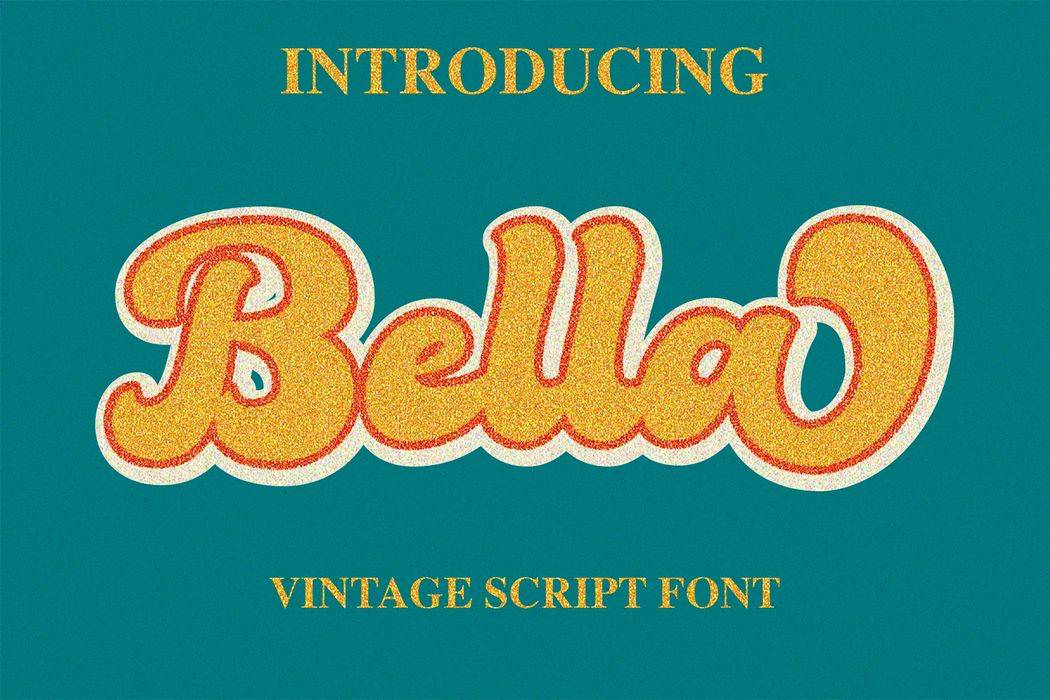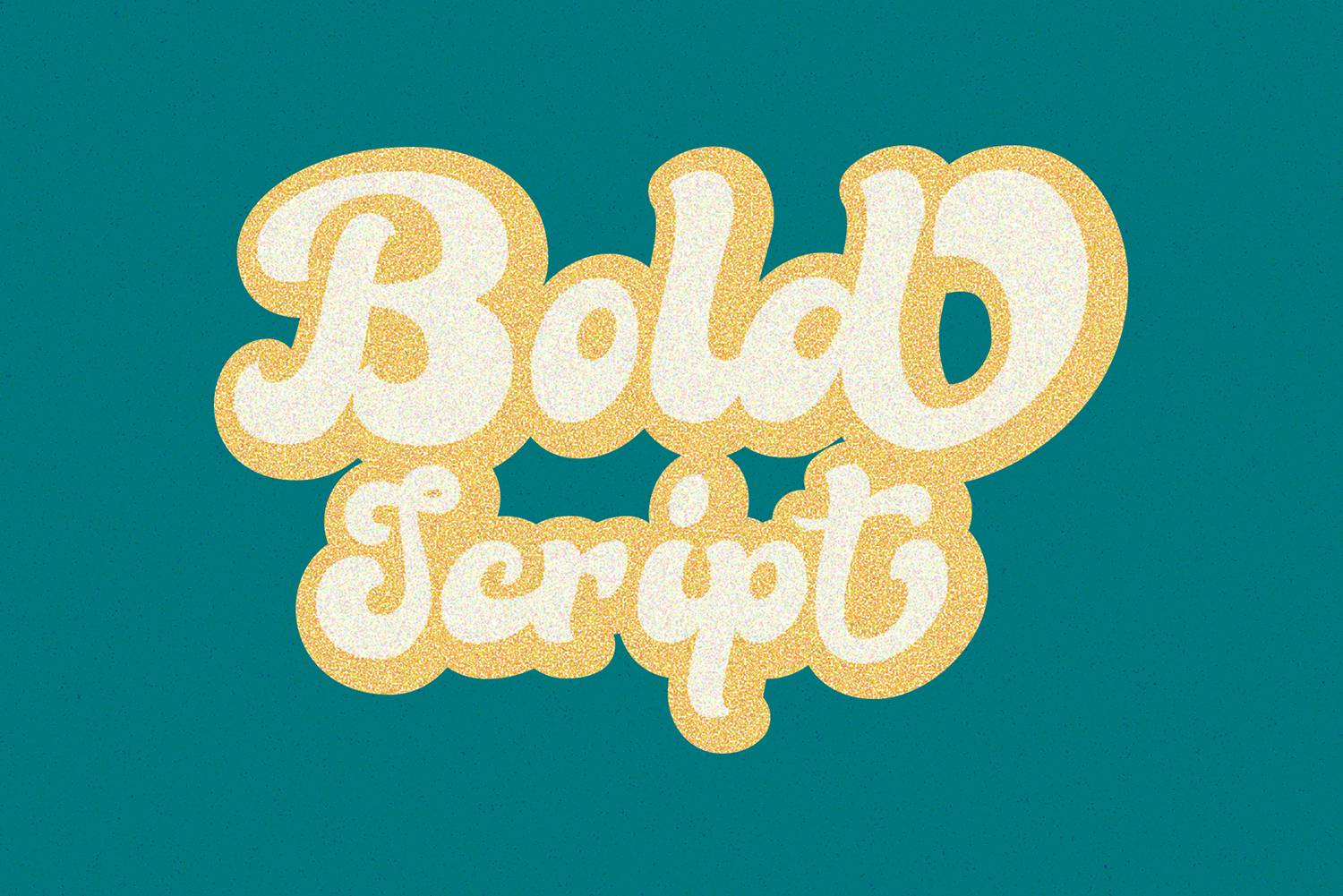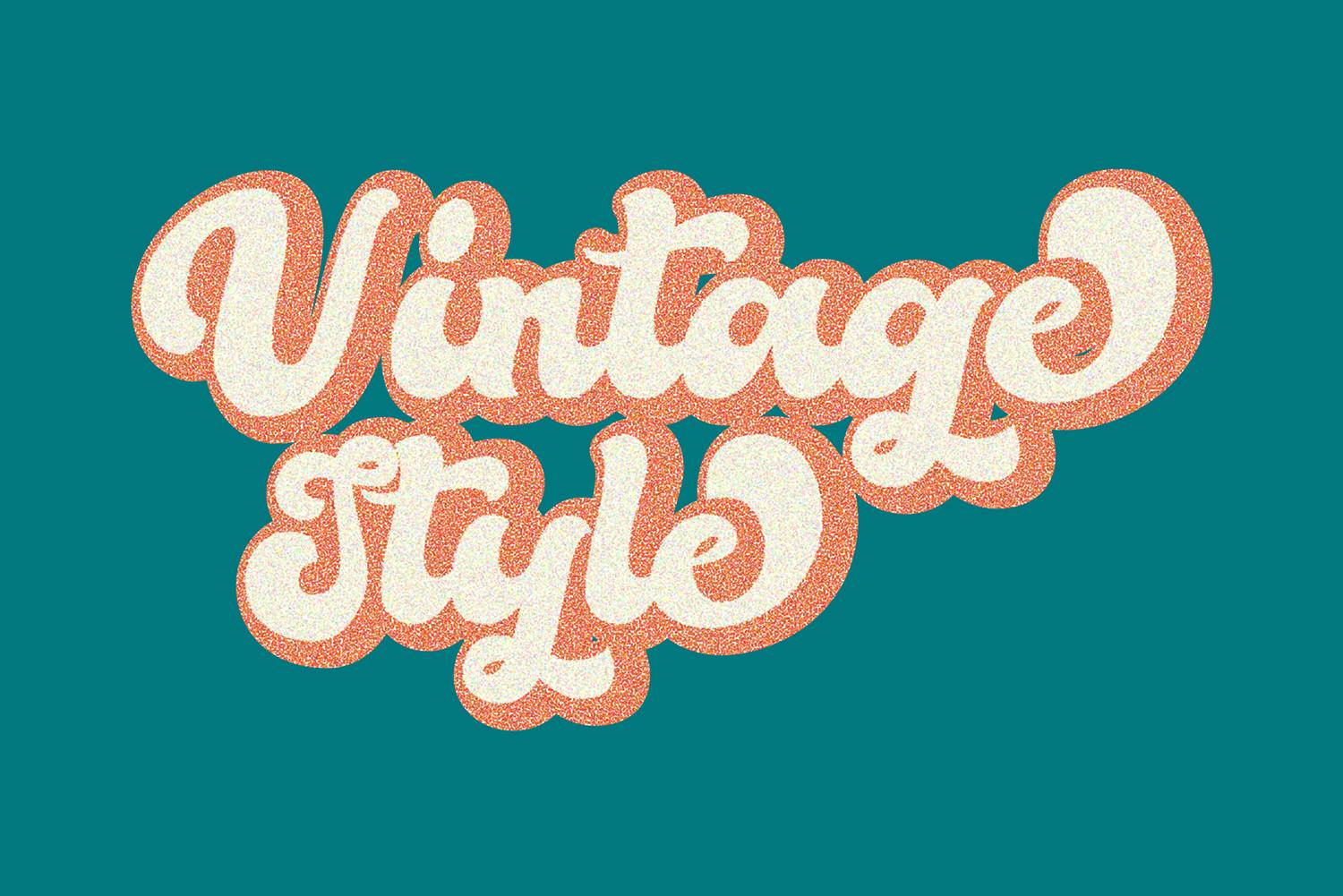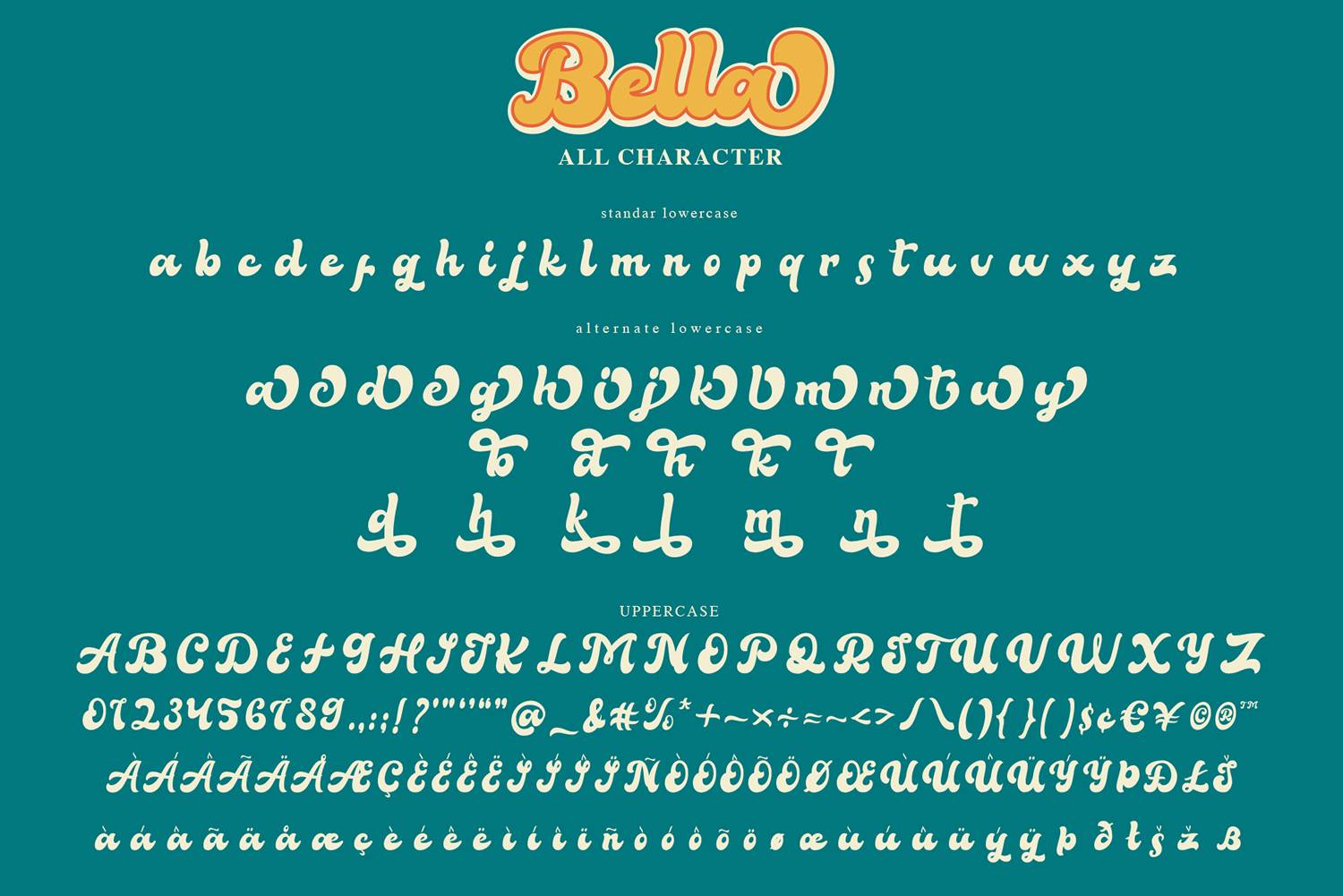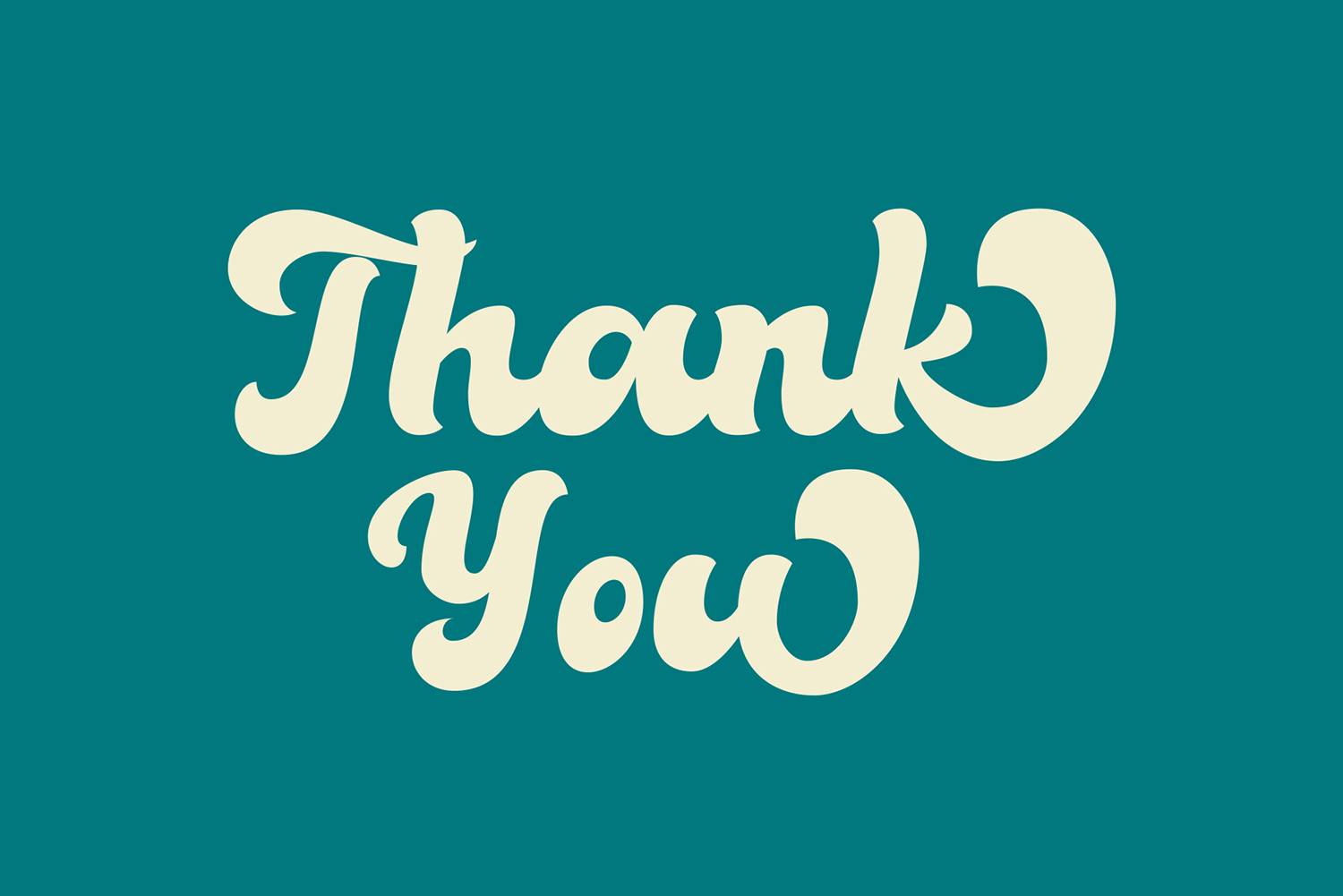
Bella Font is a bold, playful script typeface with thick, rounded strokes and a high x-height that enhances readability. Its lively, casual style with soft curves and unique letter shapes makes it perfect for branding, logos, and creative projects that aim to convey a friendly and approachable vibe. This font works especially well in headlines and display uses, where its strong personality can shine.
Bella Font
About Bella Font
| Font family | Bella Font |
| Release date | 2019-01-17 |
| Designer | Agung Rohmat |